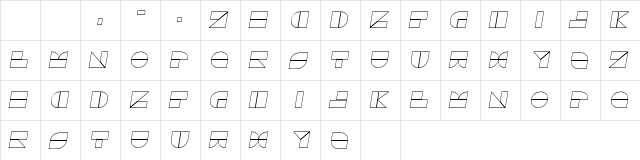
Drebiek Expanded Outline Italic
| Foundry | Daniel Angermann |
| Designer | Daniel Angermann |
Design Context for Drebiek Typeface
Drebiek brings ornamental detail and strong personality to headlines and identities, where visual impact matters more than quiet functionality. The slanted form adds forward momentum and visual energy.
Font Pairing: Pair with a clean neutral sans-serif for body copy to let Drebiek's character lead without overwhelming the composition.
Pro Tip: Use Drebiek exclusively at display sizes — it was designed to be seen, not read at length. Let a neutral companion handle body copy.